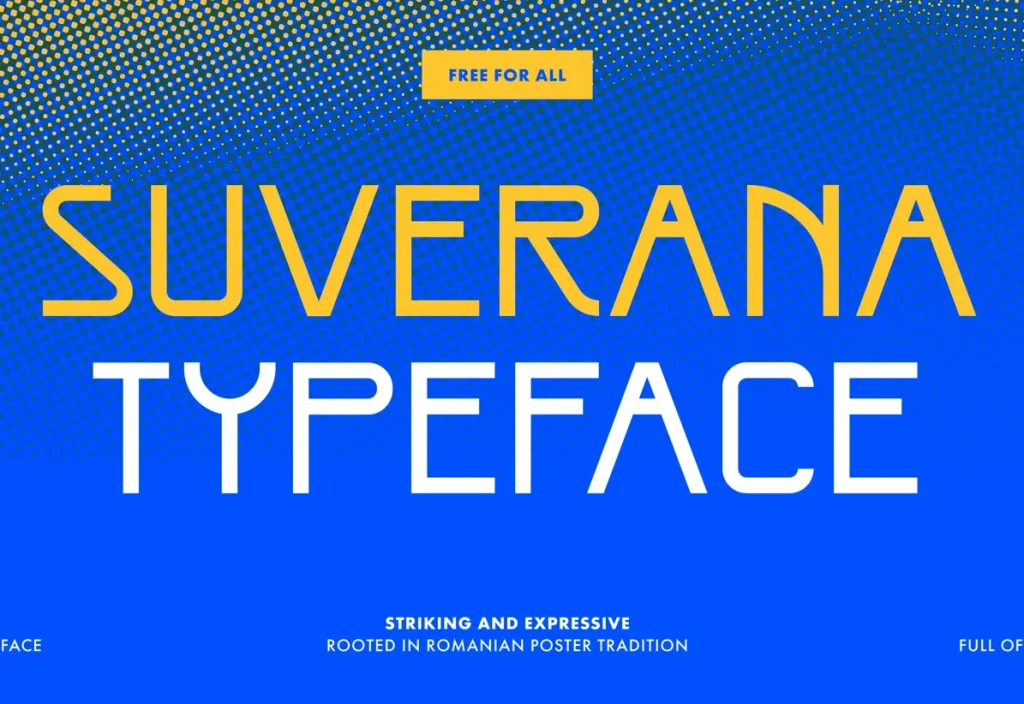
Suverana Display Typeface
Suverana is a bold, elegant display typeface that draws inspiration from 20th-century Eastern European print design.
The font merges sculpted curves with strong contrast, giving it a distinct character rooted in Art Nouveau and mid-century Romanian posters.
It is suitable for projects that require a blend of historical depth and modern clarity.
Features
• Uppercase A–Z
• Numbers 0–9
• Extensive punctuation & symbols
• Full support for Latin-based accented characters
• Manually spaced and polished letterforms